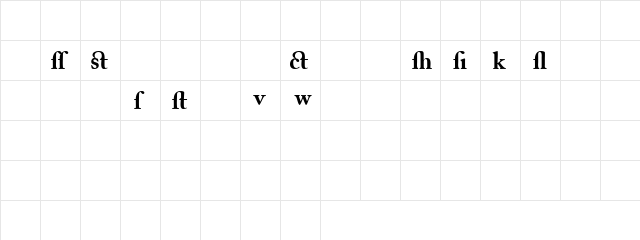
CaslonAlternateBlackSSK Regular
Design Context for CaslonAlternateBlackSSK Typeface
CaslonAlternateBlackSSK is a composed and adaptable typeface that performs quietly and consistently across a wide range of design contexts.